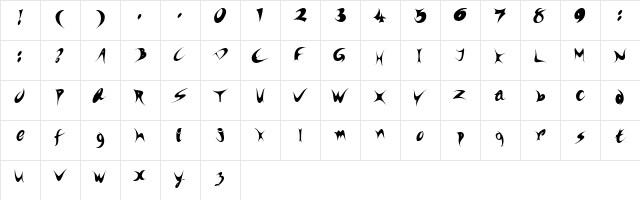
EEKS Regular
Designer: JupiterImages
Design Context for EEKS
EEKS is a composed and adaptable typeface that performs quietly and consistently across a wide range of design contexts.